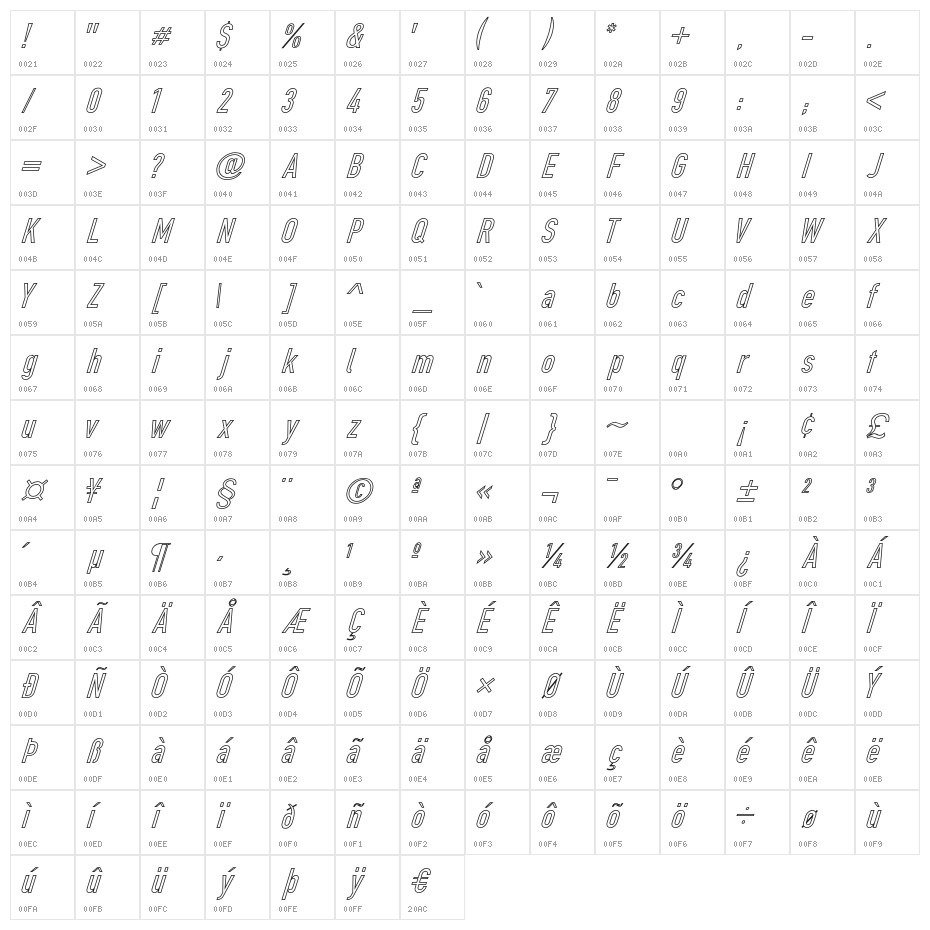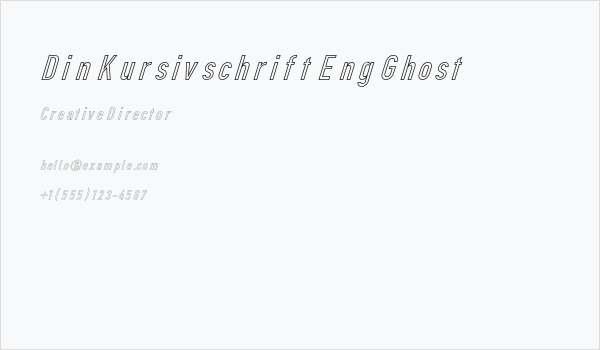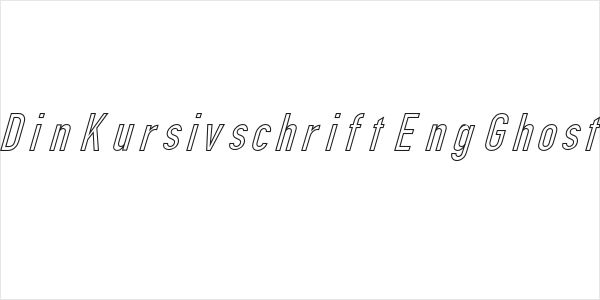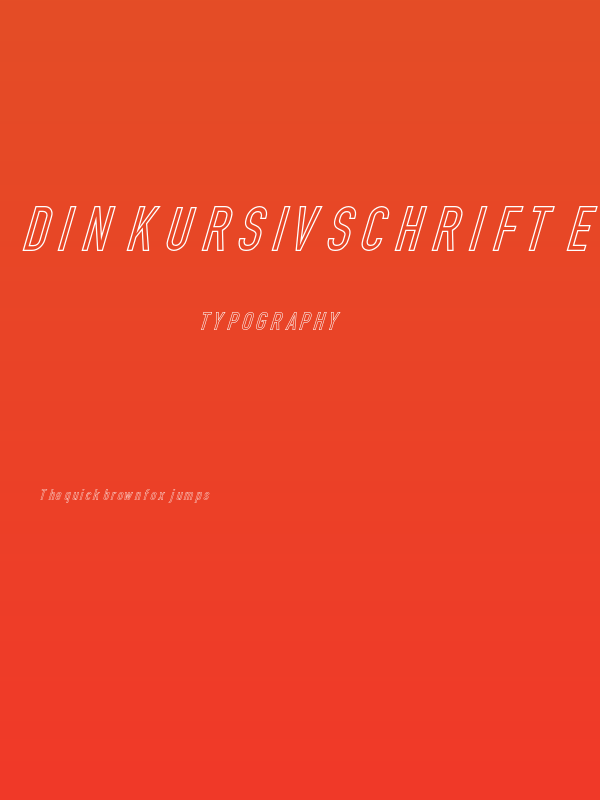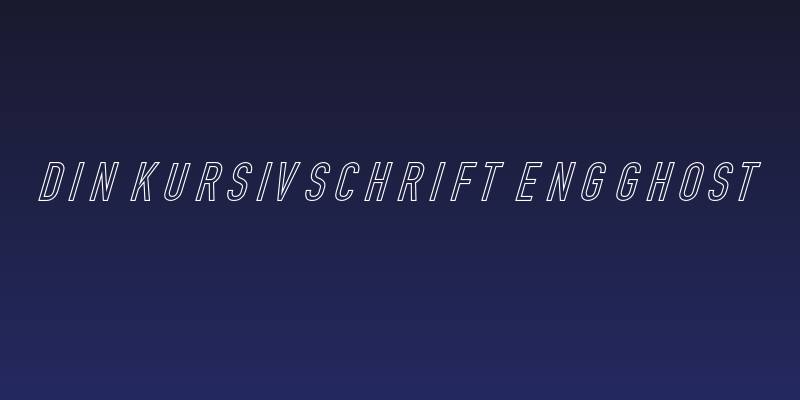
Din Kursivschrift Eng Ghost Font
Din Kursivschrift Eng Ghost Description
This font features a modern, italicized sans-serif style with a distinct outline effect. The characters are slightly condensed, giving them a sleek and streamlined appearance. The uppercase and lowercase letters maintain a consistent slant, enhancing the dynamic and forward-moving feel. The numerals and special characters follow the same stylistic approach, ensuring uniformity across all glyphs. The font's open design and clear lines make it suitable for various applications where a contemporary and stylish look is desired.
| Proposed Projects | Ideal for branding, advertising, and editorial design where a modern and stylish appearance is needed. |